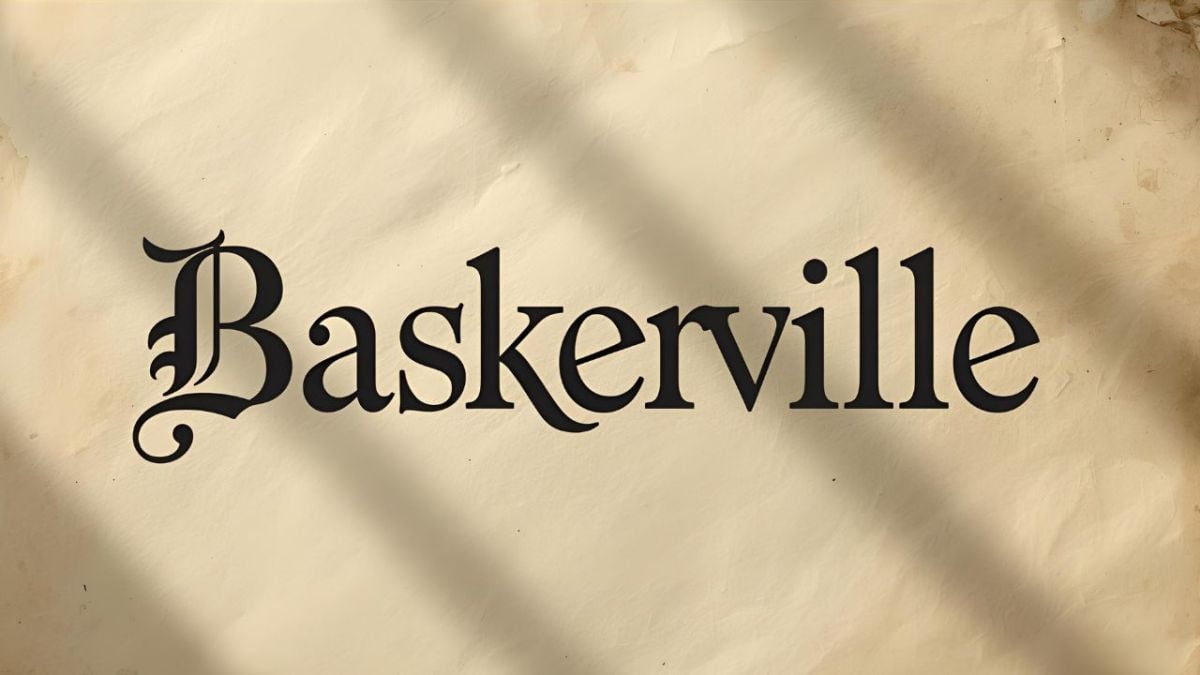
Create elegant, classic typography with Baskerville, the timeless serif typeface perfect for books, publishing, and formal design.
Baskerville is one of the most celebrated typefaces in history, created by John Baskerville in the 18th century. This legendary serif font revolutionized printing and typography, offering exceptional clarity, elegance, and readability that has made it the gold standard for books, academic works, and formal publications for over 250 years.
📚 Publishing Excellence
Perfect for books, manuscripts, and academic works. Baskerville’s legendary readability makes it the gold standard for long-form content and scholarly publishing.
🎨 Timeless Elegance
🎯 Legendary Heritage
Used by publishers, newspapers, and designers for centuries. The most respected serif typeface in typographic history.